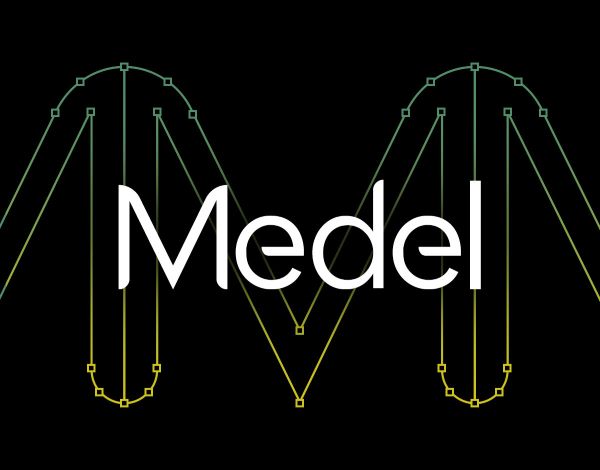
Medel Font
Medel by Ozan Karakoc is a modern sans-serif typeface that continues the designer’s series of sports-inflected display fonts — named this time after Chilean footballer Gary Medel, and carrying a similar kinetic sensibility. The letterforms are clean and confident, built with the kind of geometric clarity that works equally well on sports graphics and contemporary branding projects. Free for personal and commercial use. Featured in Behance’s Typography gallery.